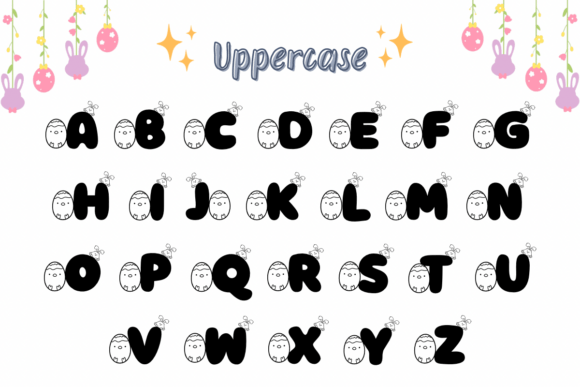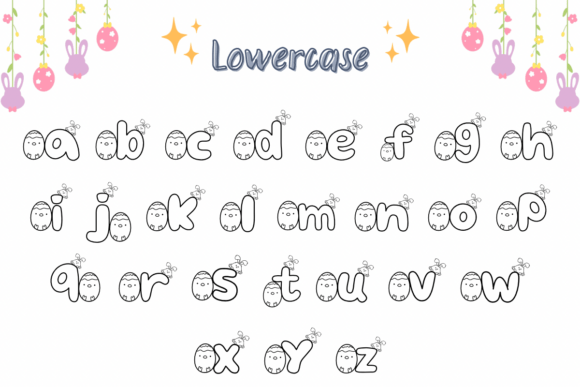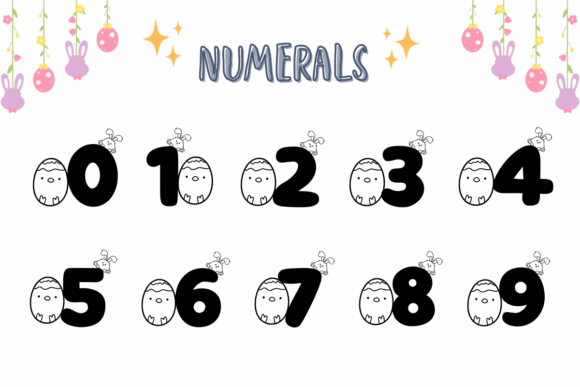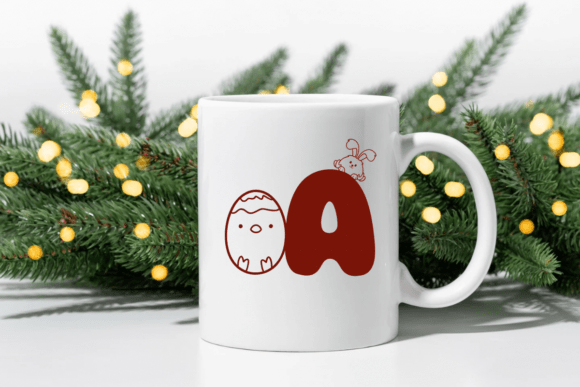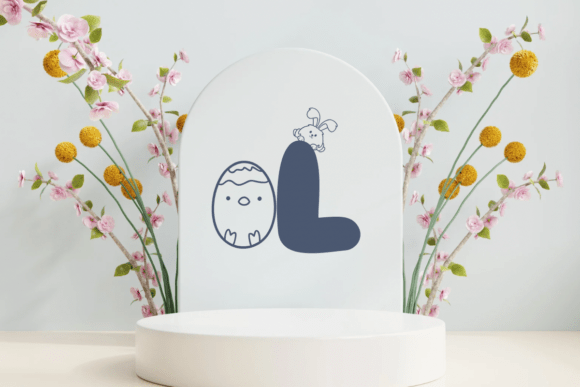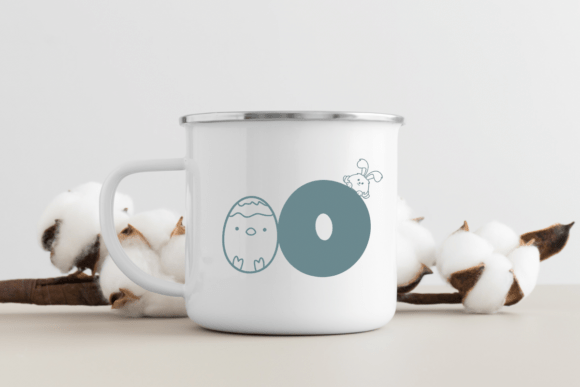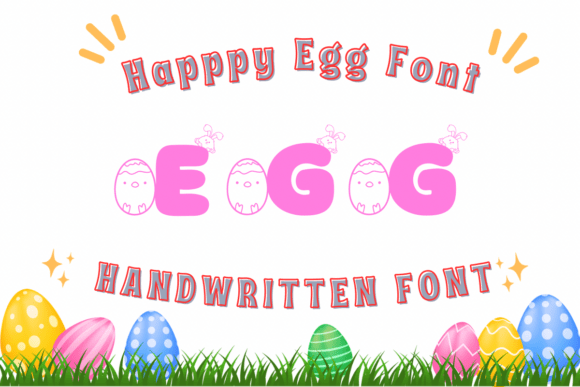
Happpy Egg Font: The Ultimate Choice for Cheerful and Energetic Designs
In the world of typography, fonts play a crucial role in conveying the tone and personality of a brand or design. If you’re looking for a font that exudes happiness, energy, and playfulness, look no further than the Happpy Egg Font. This high-impact, bubbly display font is designed to make a statement, making it perfect for youth-oriented seasonal branding, creative holiday event marketing, artisanal product packaging, and vibrant social media headers.
What Makes Happpy Egg Font So Unique?
The Happpy Egg Font is a handwritten font that features thick, rounded letterforms characterized by a massive silhouette and a stable vertical axis. The design is uniquely defined by the integration of whimsical seasonal icons—such as cracked eggs and small rabbit characters—directly into the visual flow of the text. This distinctive feature sets it apart from other fonts and makes it a standout asset for any design project.
Key Features of Happpy Egg Font
- High-impact and bubbly display font: The Happpy Egg Font is designed to grab attention and make a statement. Its bold and playful design makes it perfect for headlines, titles, and promotional materials.
- Handwritten font with thick, rounded letterforms: The font features a unique, hand-crafted look that gives it a personal and friendly feel.
- Integration of whimsical seasonal icons: The font includes a range of seasonal icons, such as cracked eggs and small rabbit characters, that can be used to add a touch of whimsy and fun to your designs.
- Perfect for youth-oriented seasonal branding: The Happpy Egg Font is ideal for designing branding materials for youth-oriented products or services, such as children’s toys, clothing, or entertainment.
- Great for creative holiday event marketing: The font’s playful and festive design makes it perfect for promoting holiday events, such as Easter or Christmas celebrations.
- Ideal for artisanal product packaging: The Happpy Egg Font can add a touch of personality and whimsy to artisanal product packaging, making it stand out on store shelves.
- Vibrant social media headers: The font’s bold and playful design makes it perfect for creating eye-catching social media headers that grab attention and drive engagement.
How to Use Happpy Egg Font in Your Designs
The Happpy Egg Font is a versatile design asset that can be used in a variety of creative projects. Here are a few ideas to get you started:
- Seasonal branding: Use the Happpy Egg Font to create eye-catching branding materials, such as logos, business cards, or brochures, for youth-oriented products or services.
- Holiday event marketing: Create promotional materials, such as flyers, posters, or social media graphics, to promote holiday events or celebrations.
- Artisanal product packaging: Add a touch of personality and whimsy to artisanal product packaging, such as labels, tags, or gift boxes.
- Social media graphics: Use the Happpy Egg Font to create vibrant social media headers, graphics, or ads that grab attention and drive engagement.
Tips for Getting the Most Out of Happpy Egg Font
To get the most out of the Happpy Egg Font, here are a few tips to keep in mind:
- Experiment with different colors: The Happpy Egg Font looks great in a range of bright, bold colors. Experiment with different color combinations to find the one that works best for your design.
- Use it sparingly: While the Happpy Egg Font is designed to make a statement, it can be overwhelming if used too much. Use it sparingly to add a touch of personality and whimsy to your designs.
- Pair it with complementary fonts: The Happpy Egg Font pairs well with a range of complementary fonts. Experiment with different font combinations to find the one that works best for your design.
The Happpy Egg Font is a unique and versatile design asset that can add a touch of personality and whimsy to a range of creative projects. Its high-impact, bubbly design makes it perfect for youth-oriented seasonal branding, creative holiday event marketing, artisanal product packaging, and vibrant social media headers. With its integration of whimsical seasonal icons and bold, playful design, the Happpy Egg Font is sure to make a statement in any design project.